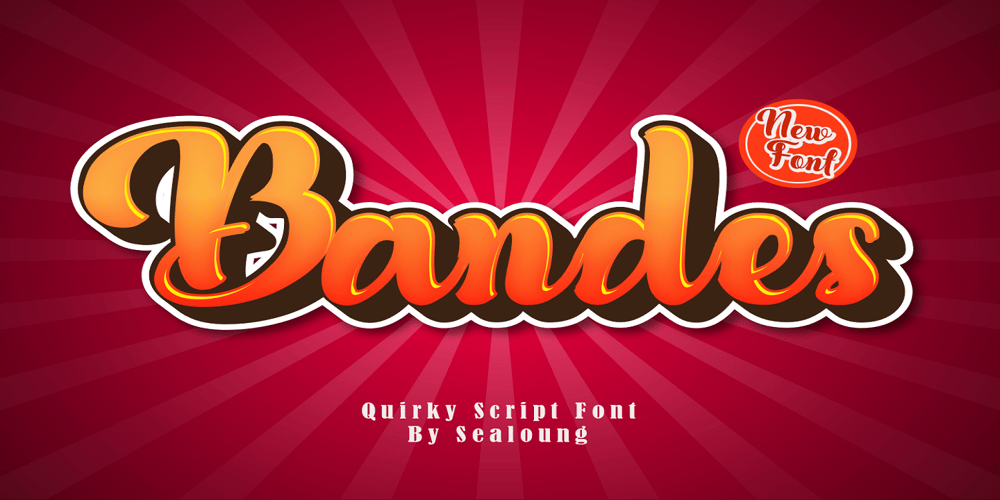
Bandes Font Family was designed by Saiful Anwar and published by Sealoung. Bandes contains 1 styles and family package options. Bandes is a bold, thick lettered, retro styled display font. Whether you use it for cartoon related designs, children games or just any creation that requires a lovely touch, this font will be an amazing choice.